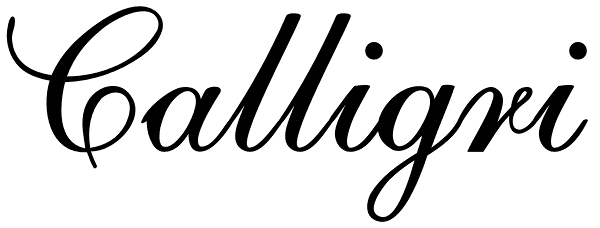
Calligri
Someday, as computers become the new medium for writing, the art of cursive handwriting will slowly become a lost art. Calligri seeks to preserve this endangered style with tastefully drawn letters that connect with each other in classical artistry...